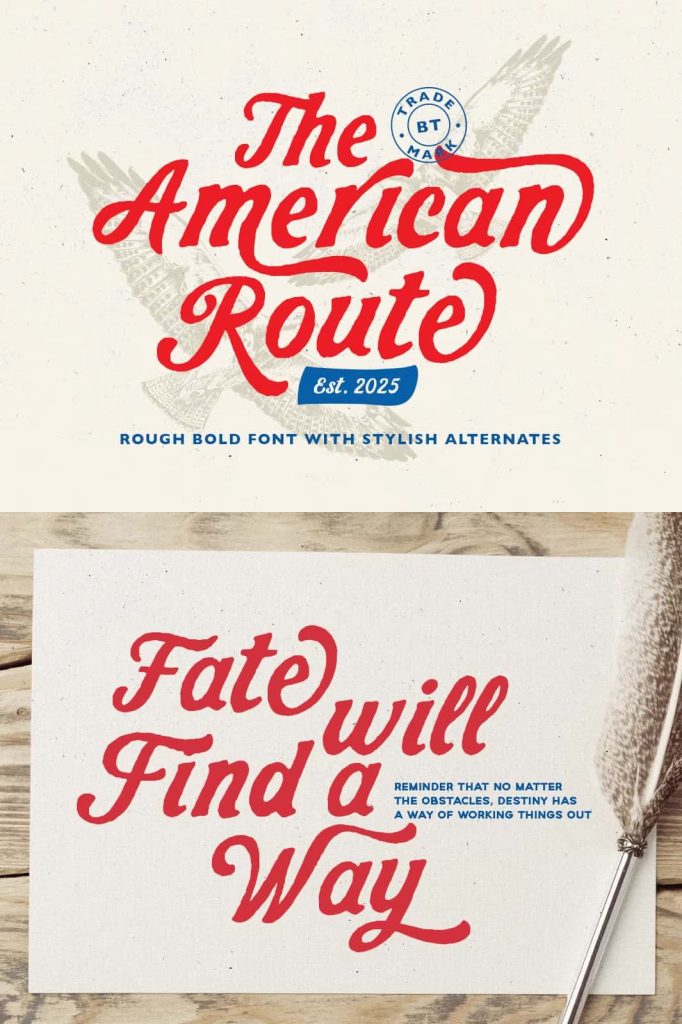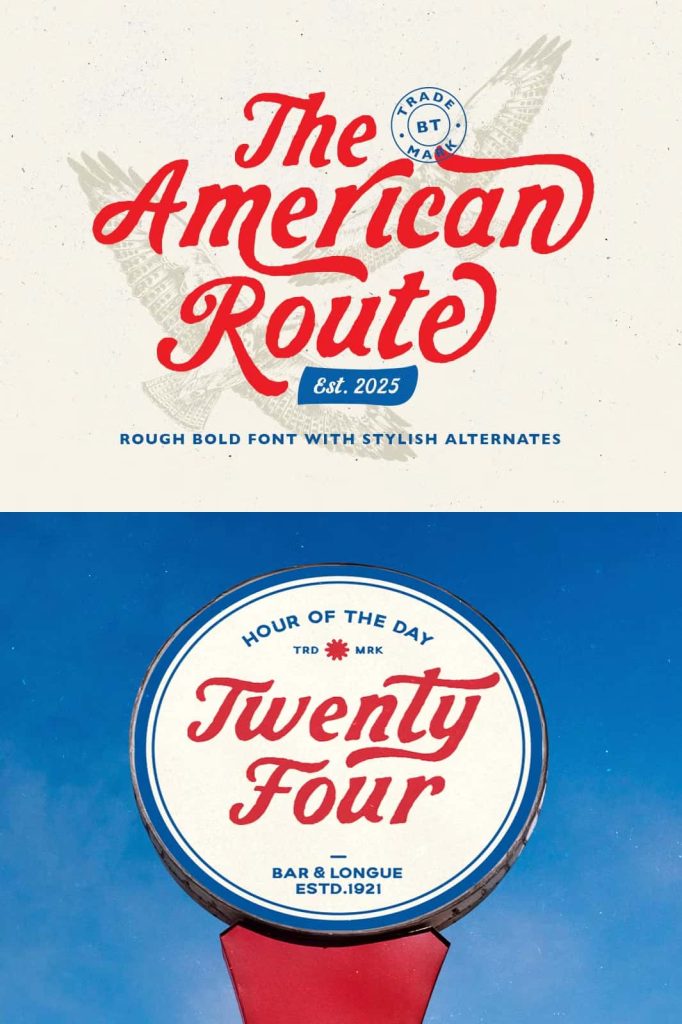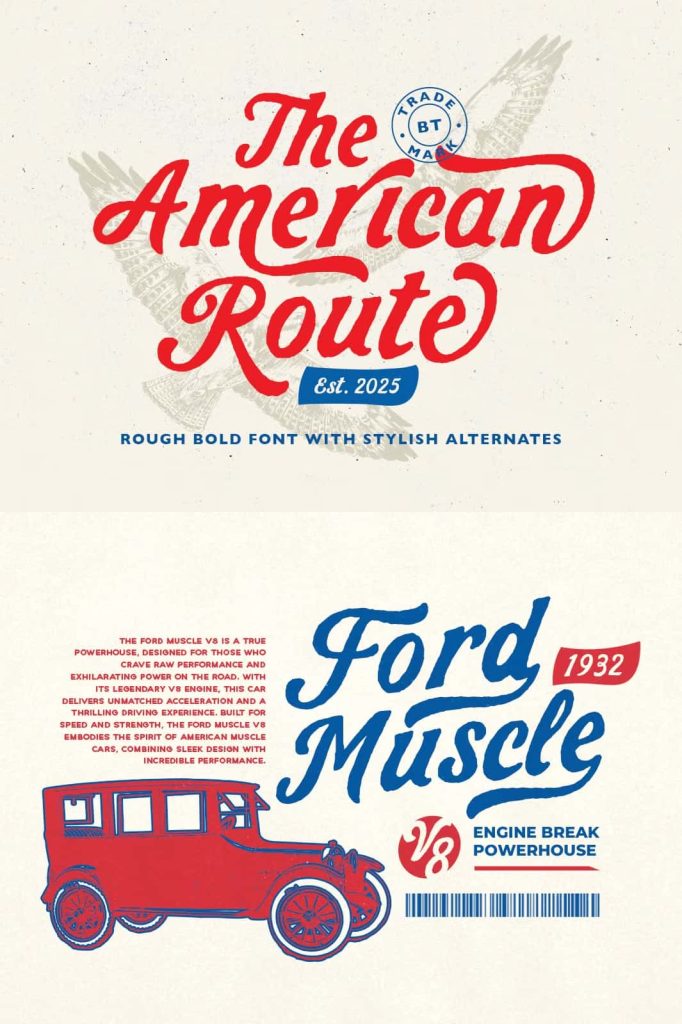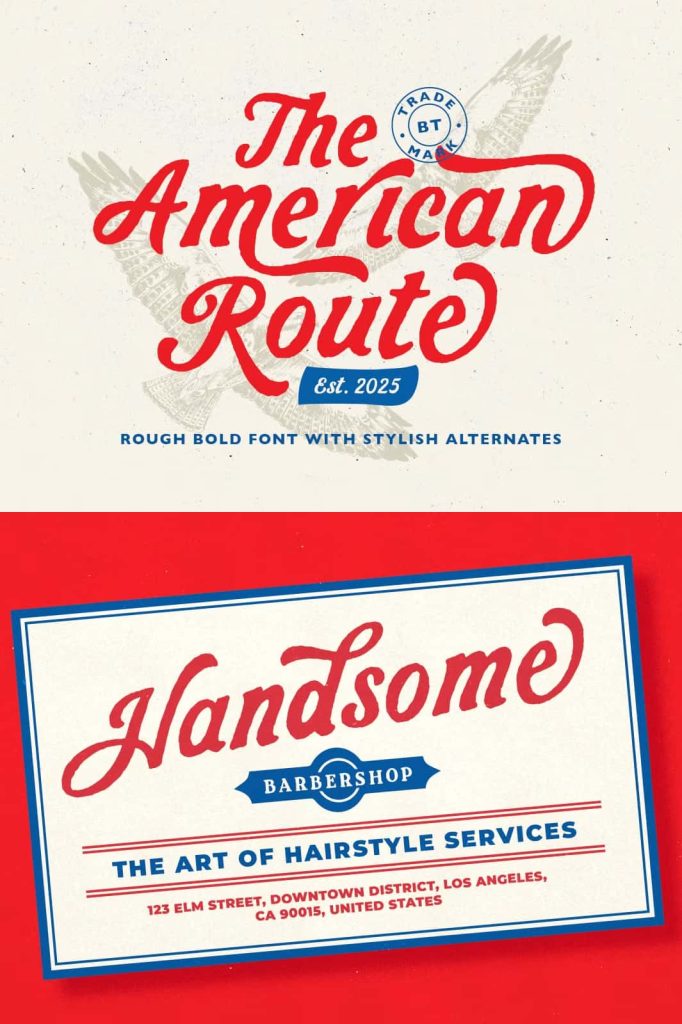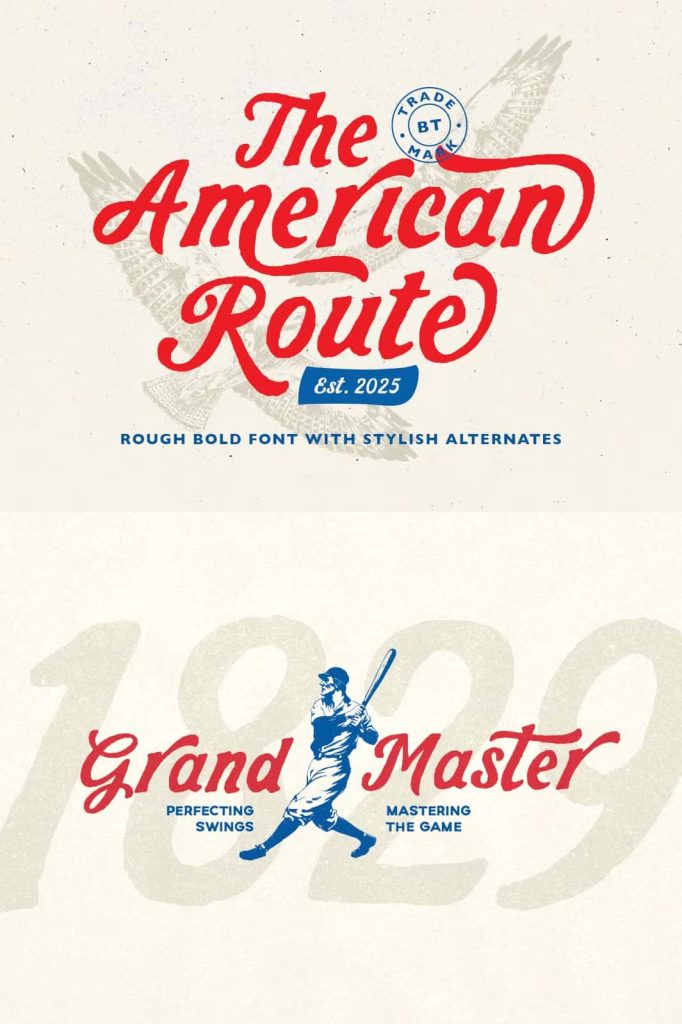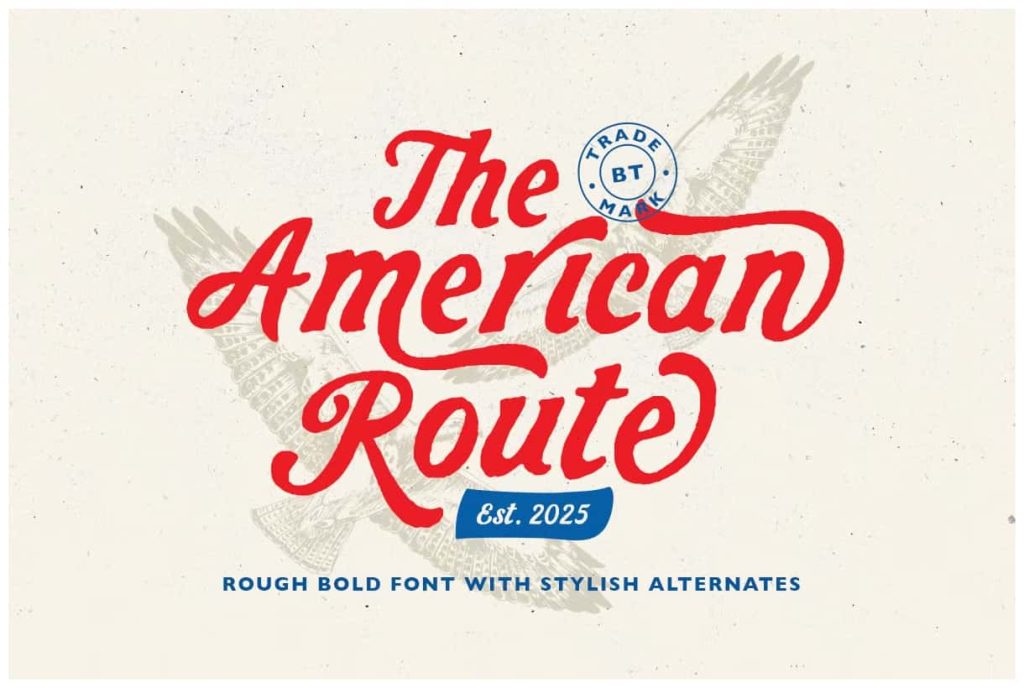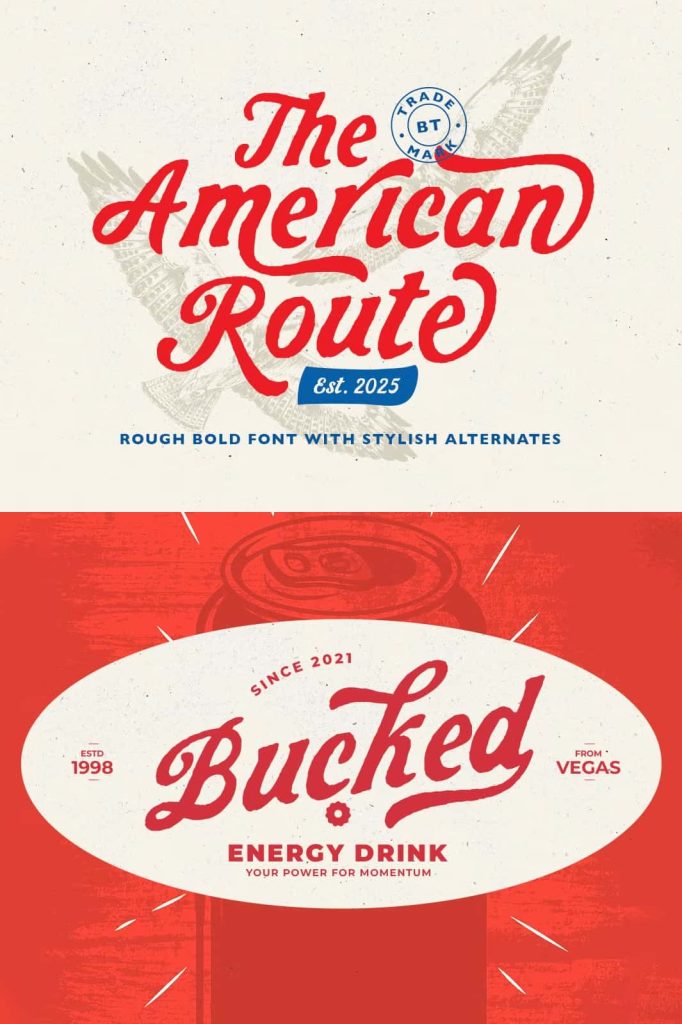
American Route Font – Bold Vintage Typeface with Rugged Character and Timeless Appeal
Introducing American Route Font
American Route Font is a powerful and expressive typeface that brings the essence of vintage Americana to modern design. With its bold structure and naturally rough edges, this font captures a nostalgic yet contemporary feel, making it perfect for projects that require strength, authenticity, and character. Every letter is designed with precision to deliver a handcrafted look that feels organic, rustic, and adventurous. Whether you’re creating logos, posters, quotes, or product packaging, American Route gives your design a distinctive visual presence that stands out from the rest.
A Bold Typeface Inspired by Vintage Aesthetics
The American Route Font draws inspiration from vintage signage, retro travel posters, and classic road trip culture. Its bold lines and textured edges evoke a sense of nostalgia, while its modern proportions make it versatile for today’s design needs. The combination of rough charm and solid structure gives it a powerful visual impact, perfect for creating designs that speak to freedom, adventure, and heritage. The handcrafted texture ensures that every word looks dynamic and alive, as though it was painted by hand on an old roadside billboard.
Perfect for Strong and Expressive Designs
If your project needs a design that commands attention and conveys confidence, American Route Font is your go-to choice. The font’s heavy weight and rugged detailing give it a strong presence in headlines, titles, and branding materials. From vintage-style apparel to automotive logos and poster designs, American Route delivers versatility with attitude. It works equally well for digital graphics or print layouts, ensuring your message leaves a bold and lasting impression.
Versatile Applications Across Design Projects
One of the defining features of American Route Font is its flexibility. Its unique character allows it to adapt to multiple design scenarios while maintaining its authentic, handcrafted appearance. Here are a few ways designers commonly use this bold vintage font:
- Posters and Advertisements: Create eye-catching designs with an old-school, rugged edge.
- Logotypes and Branding: Develop memorable logos for lifestyle brands, outdoor companies, or vintage-inspired businesses.
- Quotes and Typography Art: Highlight motivational phrases or creative statements with a distinctive bold typeface.
- Merchandise and Apparel: Design standout t-shirts, hats, and product labels with vintage flair.
- Packaging Design: Enhance brand personality on product labels, boxes, and bottles.
- Digital Media and Social Content: Use it for bold titles, promotions, and creative layouts that require attention-grabbing typography.
Stylish Alternates and Language Support
American Route Font includes a set of stylish alternates that give designers creative freedom to explore variations and add flair to their typography. These alternates help you customize letterforms for unique wordmarks and designs, ensuring that each project feels distinct. In addition, the font offers multi-language support, making it suitable for international brands, global campaigns, and multilingual creative projects. Whether your design is in English, Spanish, French, or other supported languages, American Route ensures consistent style and visual integrity.
Why Choose American Route Font?
Choosing American Route Font means embracing boldness and authenticity. This font is more than just a typeface — it’s a design statement that represents freedom, craftsmanship, and creativity. Its rugged texture and confident lines make it perfect for designers who want to stand out and add personality to their work. With its handcrafted aesthetic and strong presence, American Route bridges the gap between vintage tradition and modern design needs.
Design Benefits:
- Vintage-inspired design: Reflects the spirit of old American road culture and classic typography.
- Bold and rugged texture: Adds character and realism to your designs.
- Versatile usability: Suitable for logos, posters, merchandise, and more.
- Custom alternates: Offers creative flexibility for distinctive typographic expressions.
- Multi-language support: Enables use across international design projects.
Ideal for Creative Professionals
American Route Font is designed for creators who want to bring authenticity and boldness into their work. Graphic designers, typographers, branding specialists, and illustrators can all benefit from its dynamic versatility. The font’s handcrafted edge and vintage inspiration make it especially popular in industries such as apparel, automotive, outdoor adventure, and lifestyle branding. Whether you’re developing a visual identity or enhancing your digital artwork, American Route gives you the tools to create work that feels powerful and timeless.
American Route Font embodies the rugged charm and bold personality of classic Americana design. With its vintage roots, rough edges, and modern usability, this typeface stands out as a reliable and visually striking option for any creative project. From posters and branding to packaging and digital design, American Route helps you communicate strength, adventure, and originality. Bring your next project to life with a font that’s confident, timeless, and full of character.
Choose American Route Font – and let your designs travel the bold, creative road to timeless style.